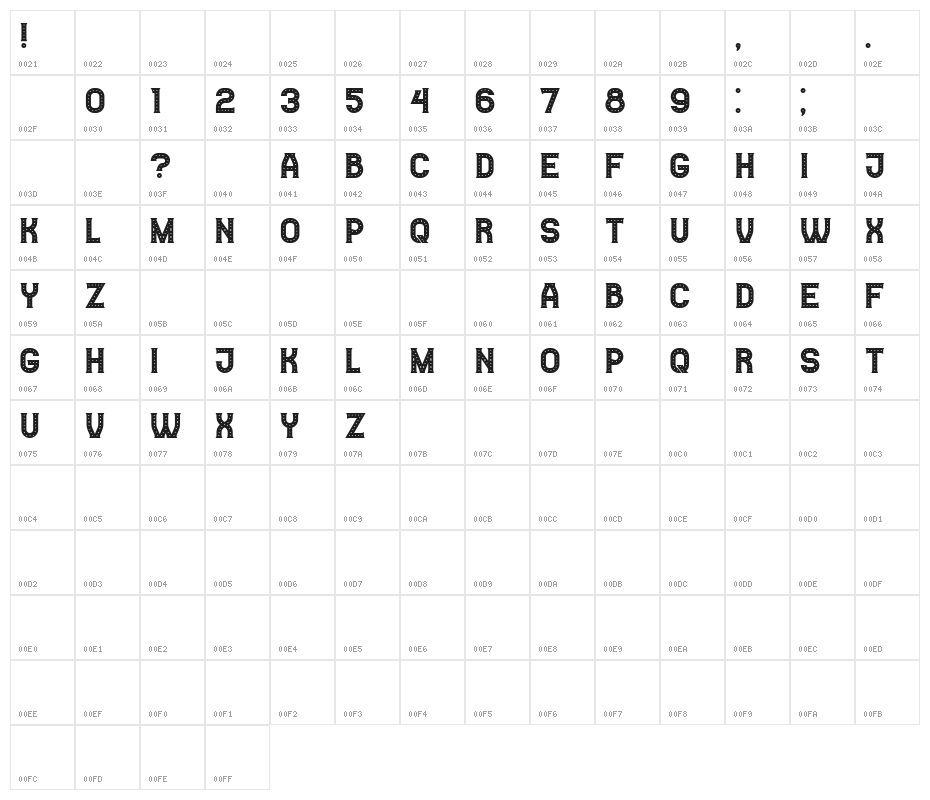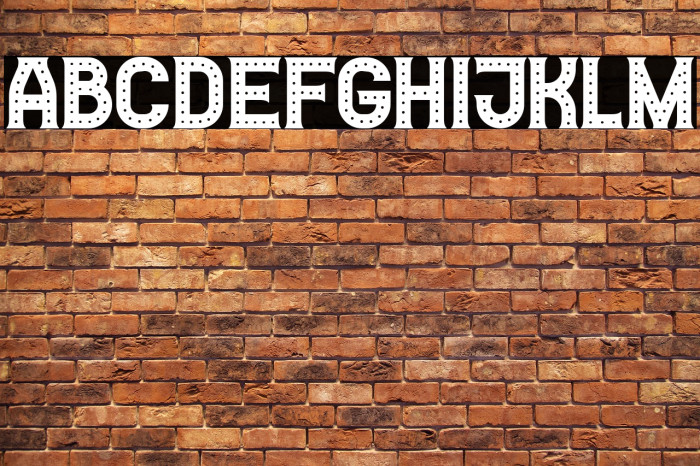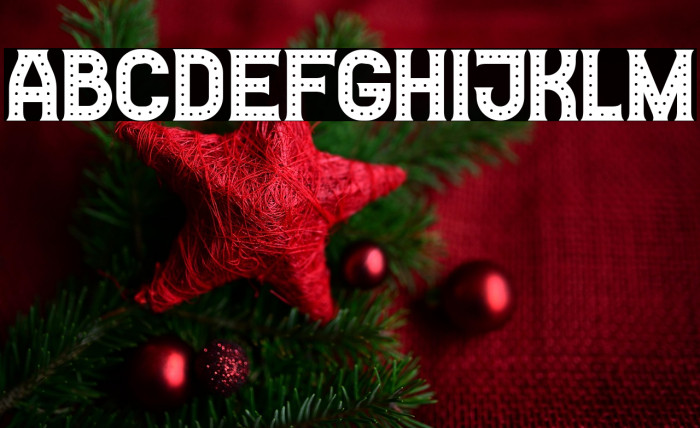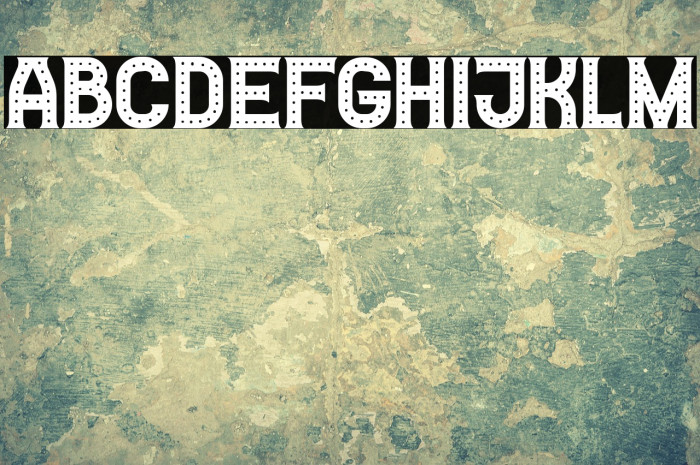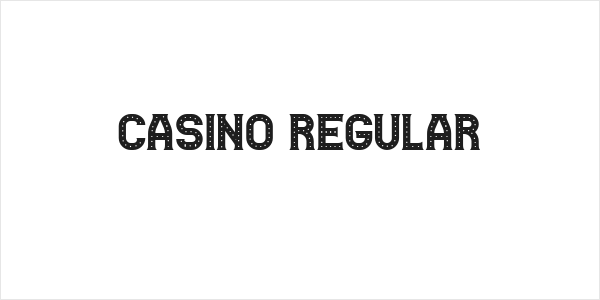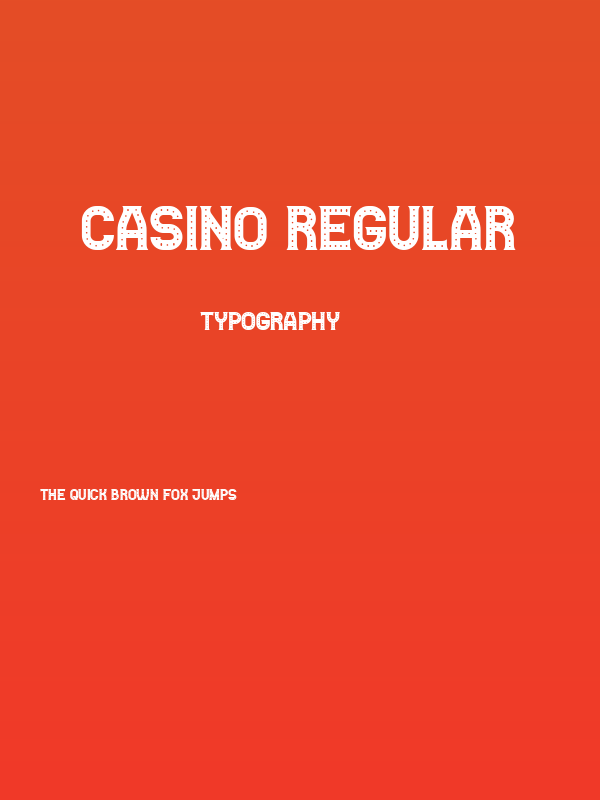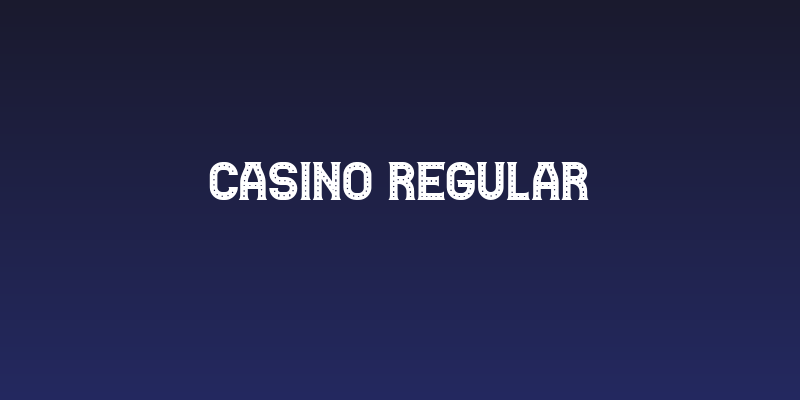
Casino Regular Font
Casino Regular Description
This font features a bold and decorative style, reminiscent of vintage casino signage. Each character is adorned with a series of small, evenly spaced dots that mimic the appearance of illuminated bulbs, adding a playful and eye-catching element. The uppercase letters are uniform in height, while the numbers and special characters maintain the same decorative theme. The overall design is striking and ideal for creating a sense of nostalgia and excitement.
| Use Case | Headlines, Logos, Signage |
| Proposed Projects | Ideal for casino-themed events, retro posters, signage, and branding projects that require a touch of vintage flair. |